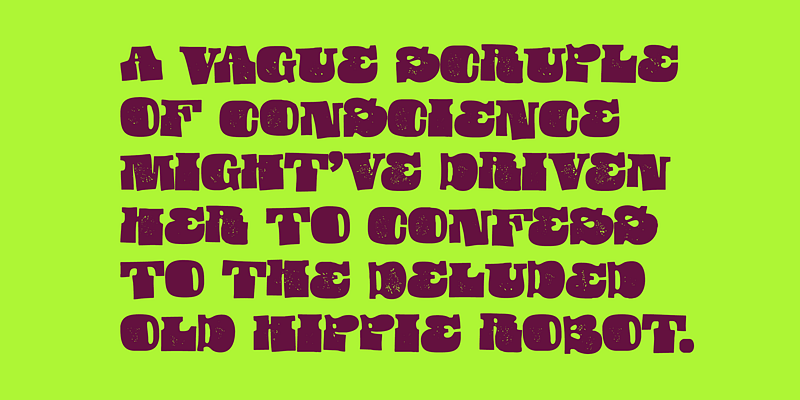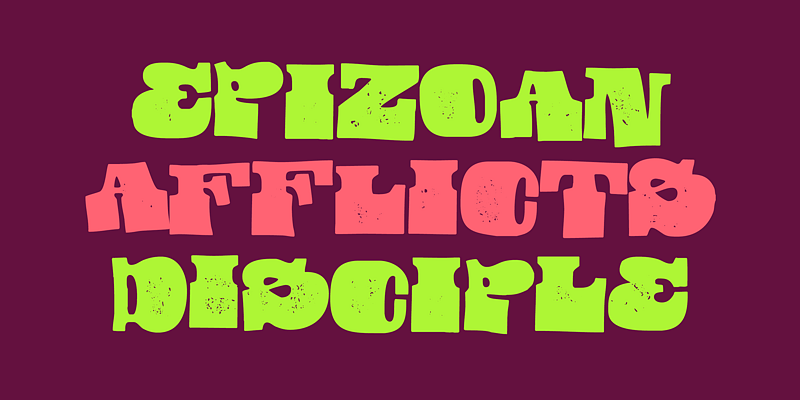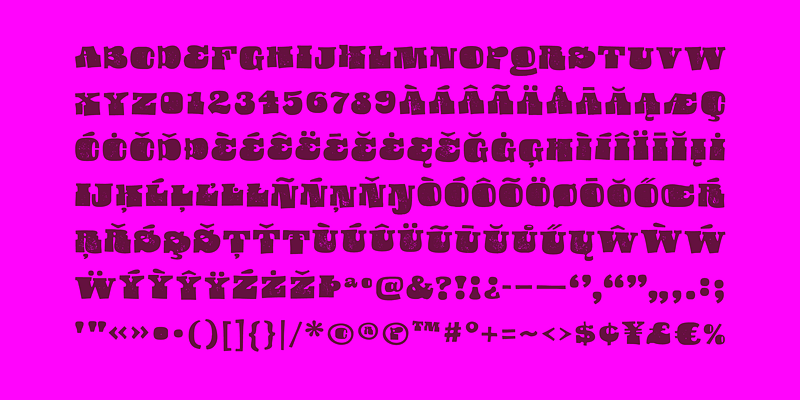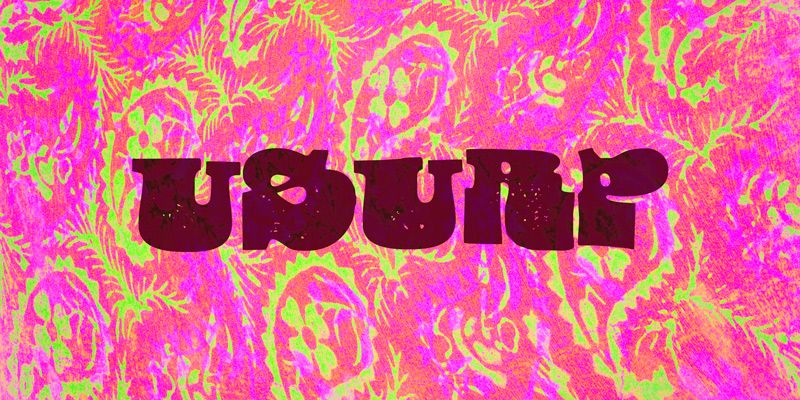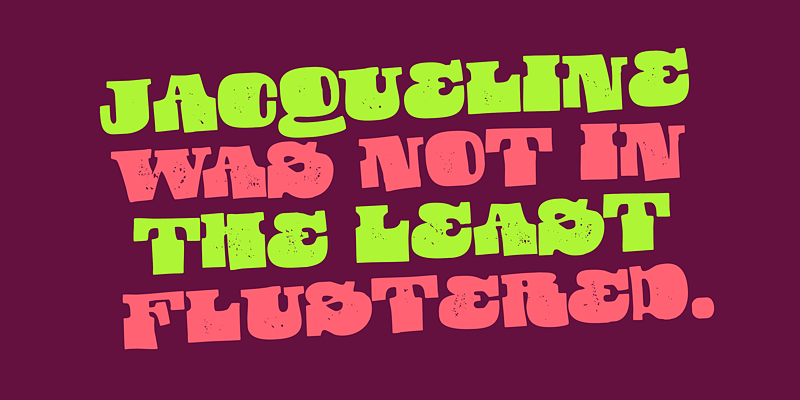
Usurp twists familiar serif DNA into unruly display lettering. Its heavy, uneven forms began with physically cut paper letters, so the awkward counters and abrupt changes of width feel built into the shapes rather than pasted on as distress. Look closely and there is a distant relationship to Garamond beneath the psychedelic result. Short words become dense, memorable objects, ideal for experimental posters, bold snack packaging, music graphics, and titles that should interrupt a tidy layout. The strange silhouettes deserve generous size; a few letters can take over the page.